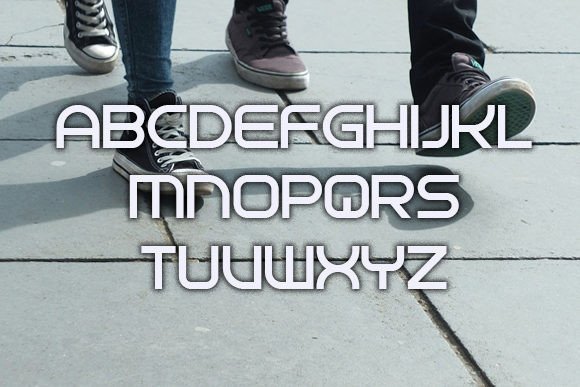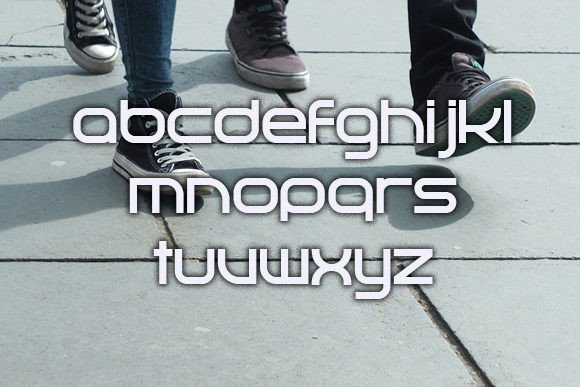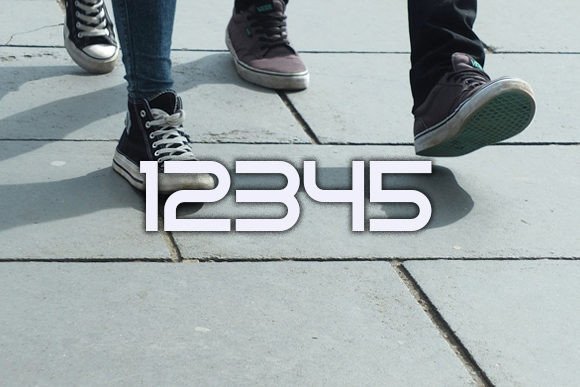
Essen Font: Elevate Your Designs with a Modern Sci-Fi Twist
In the realm of typography, fonts play a pivotal role in conveying messages, evoking emotions, and defining the aesthetic of a design. For designers and crafters seeking a modern edge, the Essen Font emerges as a compelling choice. This article explores the essence of the Essen Font, its characteristics, and the myriad ways it can be utilized to enhance various design projects.
Introduction to Essen Font
Essen is a contemporary Sci-Fi font family that brings a unique blend of slight angles and a stylish look to the table. Its modern appeal makes it an excellent choice for a wide range of applications, from t-shirts and posters to flyers and digital media. The essence of Essen lies in its ability to merge futuristic vibes with a touch of sophistication, making it versatile for both creative and commercial projects.
Characteristics of Essen Font
The Essen Font boasts several key characteristics that set it apart:
- Modern Sci-Fi Aesthetic: With its roots in Sci-Fi, Essen embodies a futuristic feel that can add a compelling edge to any design.
- Slight Angles: The subtle angling of its letters gives Essen a dynamic and somewhat edgy appearance, perfect for designs that aim to stand out.
- Stylish Look: Elegance and style are embedded in its curves and lines, making it suitable for projects that require a touch of sophistication.
- Versatility: Essen is designed to be versatile, allowing it to be used across various mediums and applications.
Applications of Essen Font
The versatility of Essen Font makes it an invaluable asset for designers and crafters. Here are some of the top applications:
- T-Shirts and Apparel: Add a modern twist to clothing designs with Essen’s futuristic and stylish letters.
- Posters and Banners: Create eye-catching posters and banners that demand attention with Essen’s bold and angled typography.
- Flyers and Brochures: Stand out in a crowded space with Essen’s unique style that can make any promotional material memorable.
- Digital Media: From website headers to social media graphics, Essen can elevate your digital presence with its modern aesthetic.
Tips for Using Essen Font Effectively
To maximize the impact of Essen Font in your designs, consider the following tips:
- Pair with Complementary Fonts: When combining Essen with other fonts, opt for those that complement its modern and slightly angled style.
- Experiment with Colors: Don’t be afraid to play with different colors that match the theme of your design while ensuring readability.
- Consider the Context: Tailor your use of Essen to fit the message and audience of your design, adjusting size, style, and color accordingly.
Essen Font offers a unique blend of modernity, style, and futuristic appeal, making it an excellent addition to any designer’s toolkit. Its versatility across various applications, from apparel to digital media, ensures that Essen can help bring any creative vision to life. Whether you’re a professional designer or a DIY crafter, Essen Font is poised to elevate your designs and make them stand out in a crowded creative landscape.
Embrace the future of typography with Essen Font, and discover a world of limitless creative possibilities.